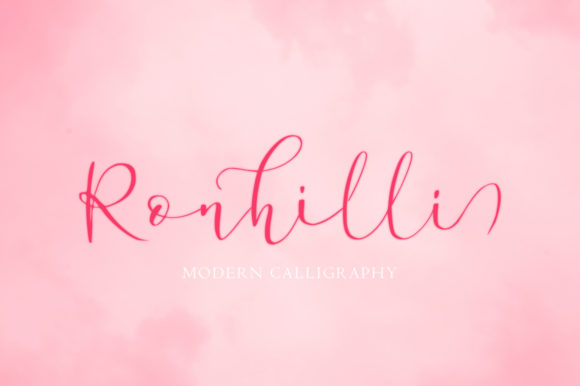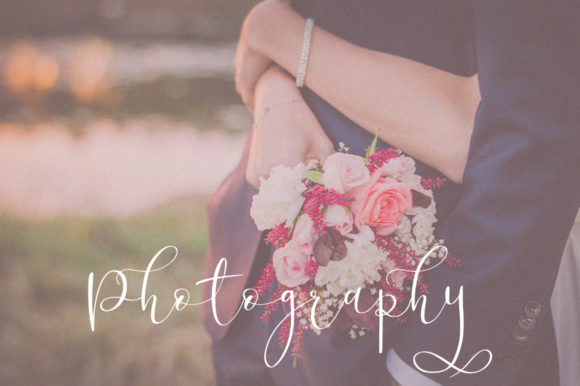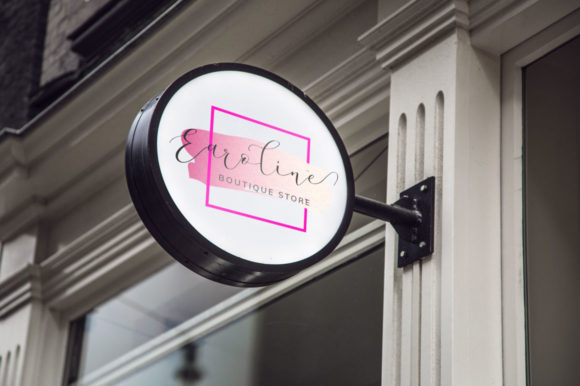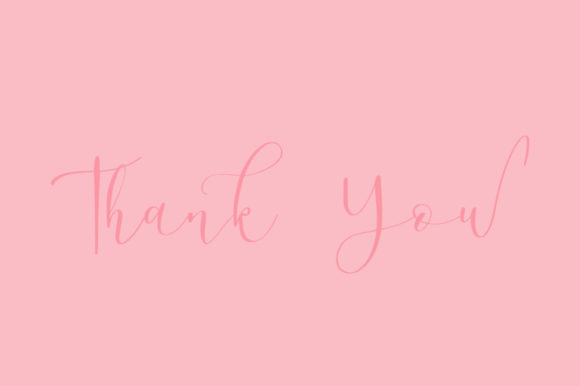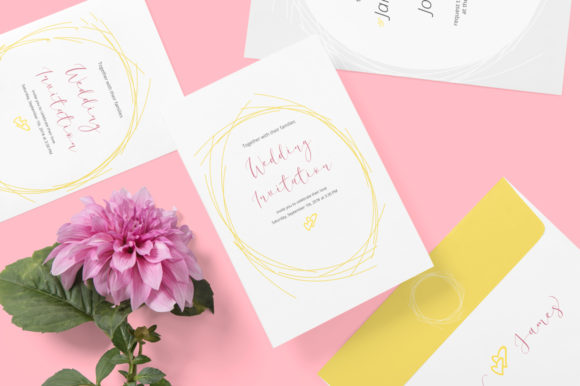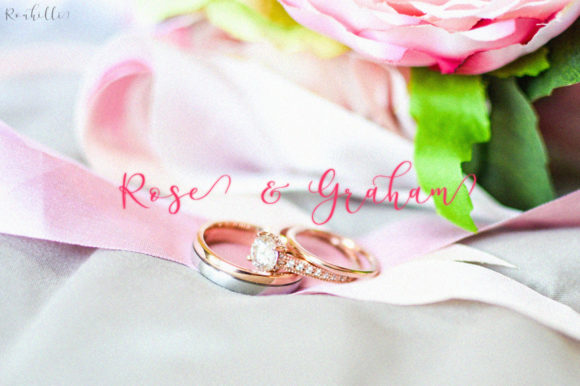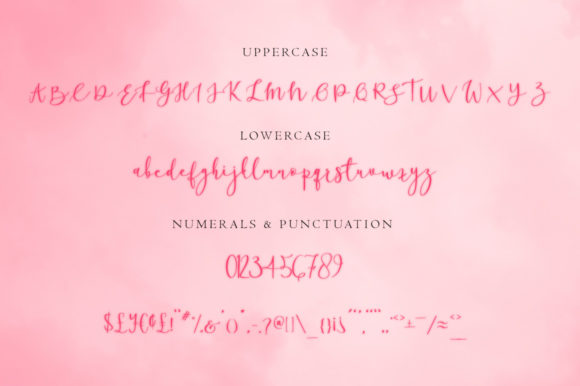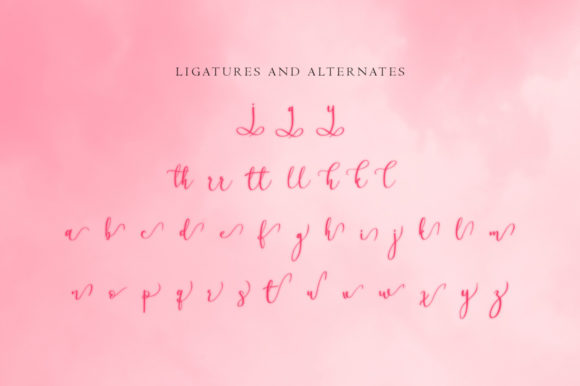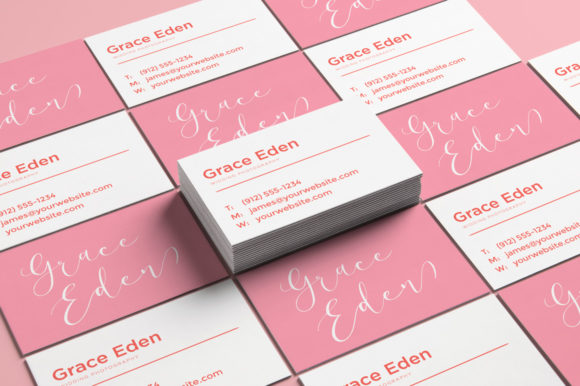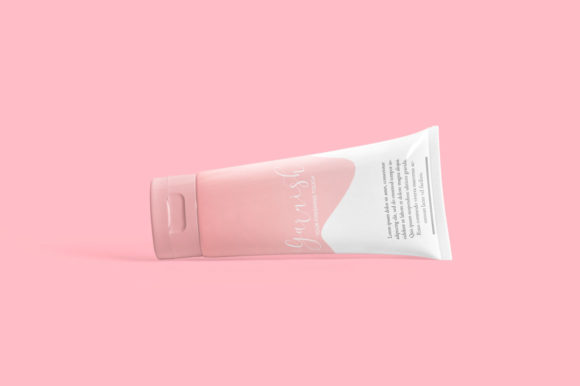
Ronhilli Font
About Ronhilli Font
Ronhilli is a romantic and playful handwritten font with an incredible feel. Use it to turn any design idea into a true standout!